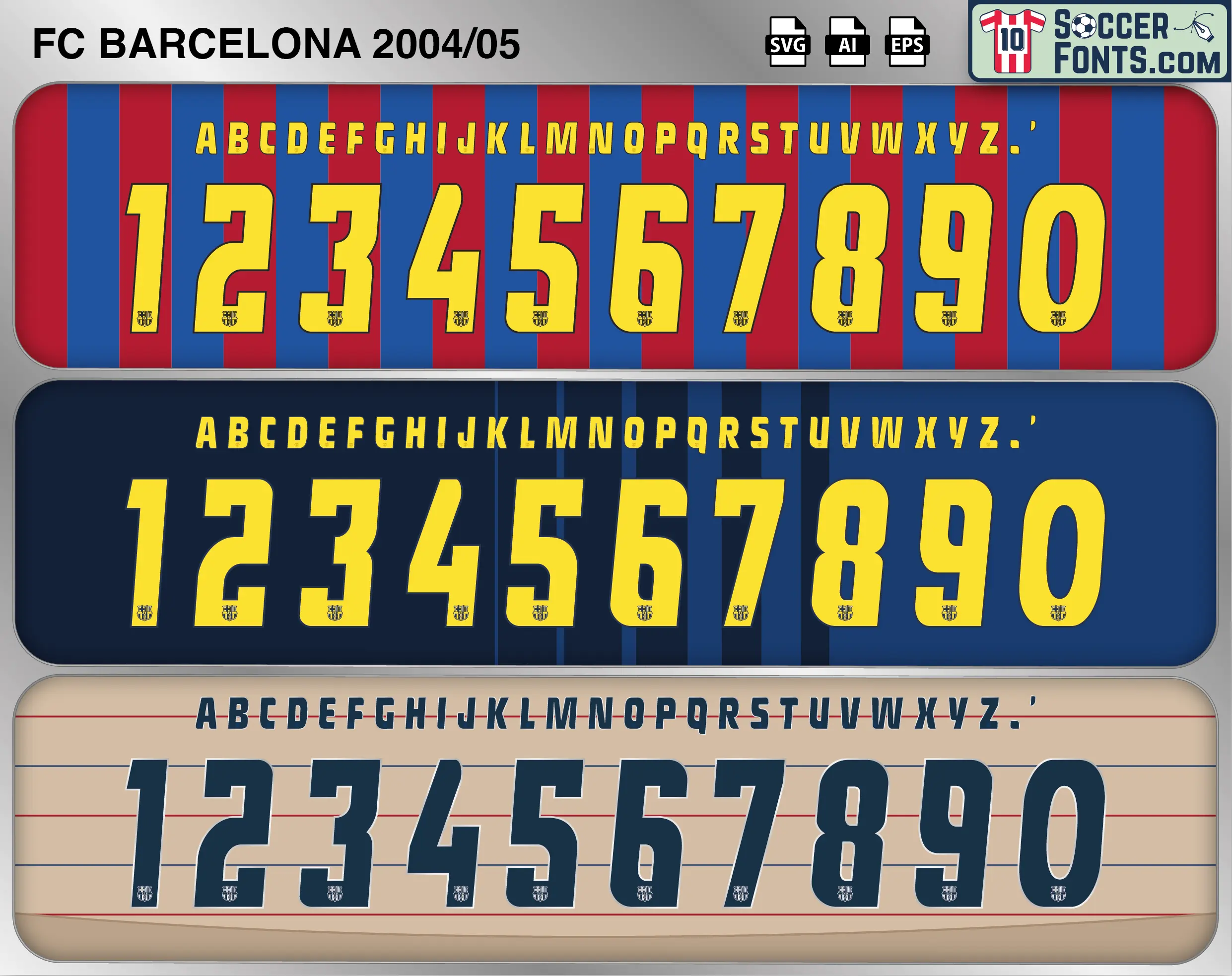
FC Barcelona 2004-05 Font
The FC Barcelona 2004-05 font is an editable soccer jersey lettering design in vector format inspired by the FC Barcelona kit style used during the 2004-05 football season. This football font artwork is prepared for football shirt recreations, custom jersey projects, football kit mockups and sports graphic design workflows.
The 2004-05 season marked the return of FC Barcelona to the top of Spanish football under the management of Frank Rijkaard. After several years without a league title, Barcelona assembled an exciting squad featuring Ronaldinho, Samuel Eto’o, Xavi Hernández, Carles Puyol, Deco, Ludovic Giuly and a young Andrés Iniesta. Ronaldinho emerged as one of the most influential players in world football, dazzling supporters with his creativity, technical ability and leadership on the pitch. Barcelona’s attacking style and consistent performances helped the club establish itself once again as a dominant force in La Liga.
The FC Barcelona 2004-05 font became associated with a season that signaled the beginning of a new golden era at Camp Nou. Barcelona secured the La Liga title for the first time since 1999, finishing ahead of fierce rivals Real Madrid and restoring confidence throughout the club. The campaign also showcased the growing influence of players who would later become central figures in one of football’s greatest teams. FC Barcelona shirts from the 2004-05 season remain especially popular among football shirt collectors and supporters because of their connection to Ronaldinho’s peak years, the club’s return to domestic success and the foundations of a squad that would soon conquer Europe. The FC Barcelona 2004-05 font reflects a landmark season that transformed the direction of modern Barcelona history.